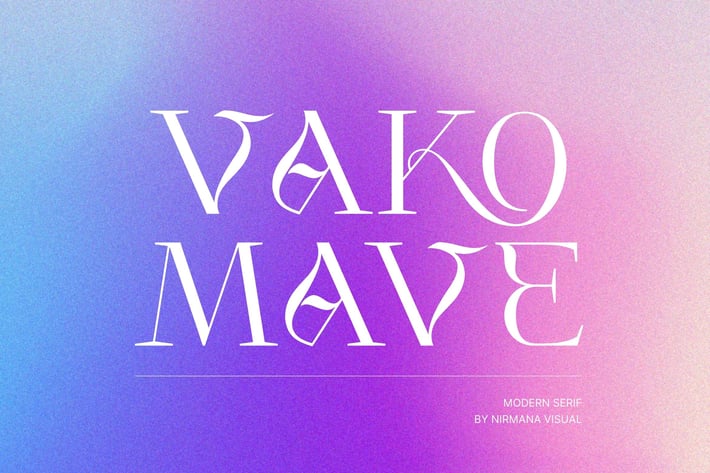
Vako Mave - Logo Font
Vako Mave is a modern Serif font that is both memorable and stylish.
This font is perfect for fashion related branding or editorial design
and displays both masculine and feminine qualities.